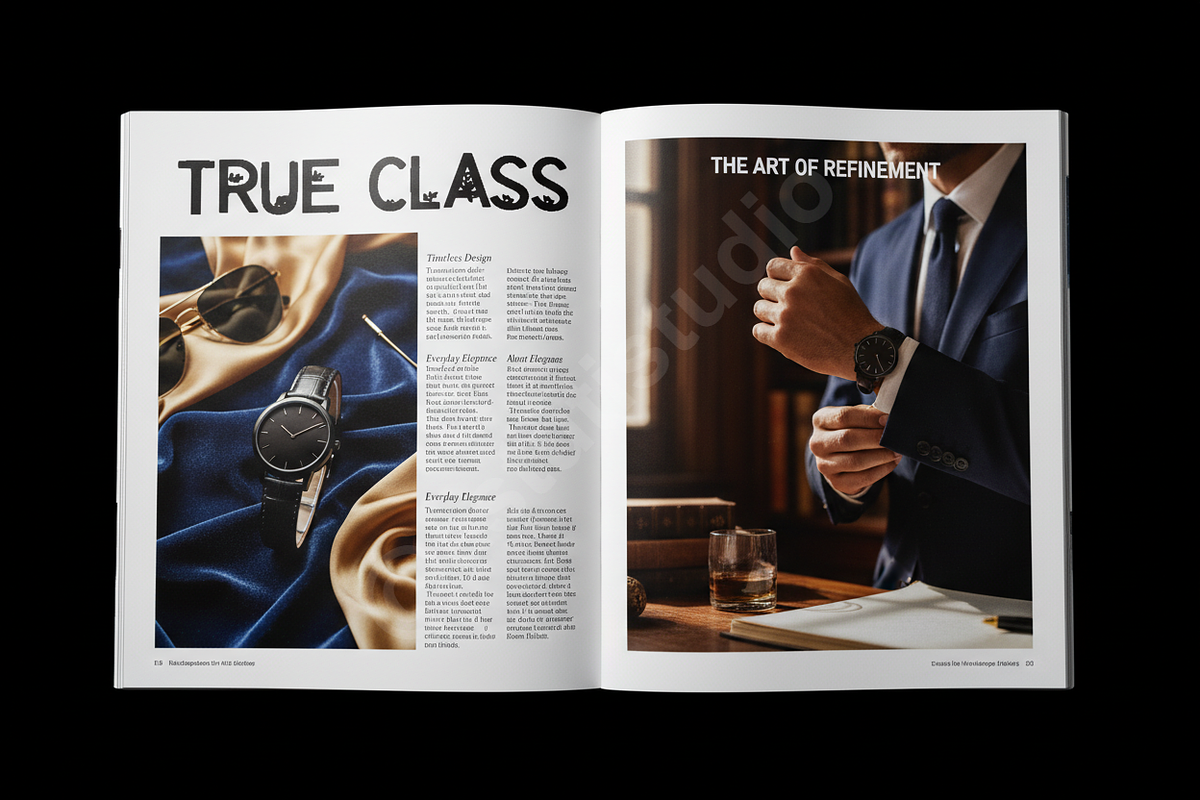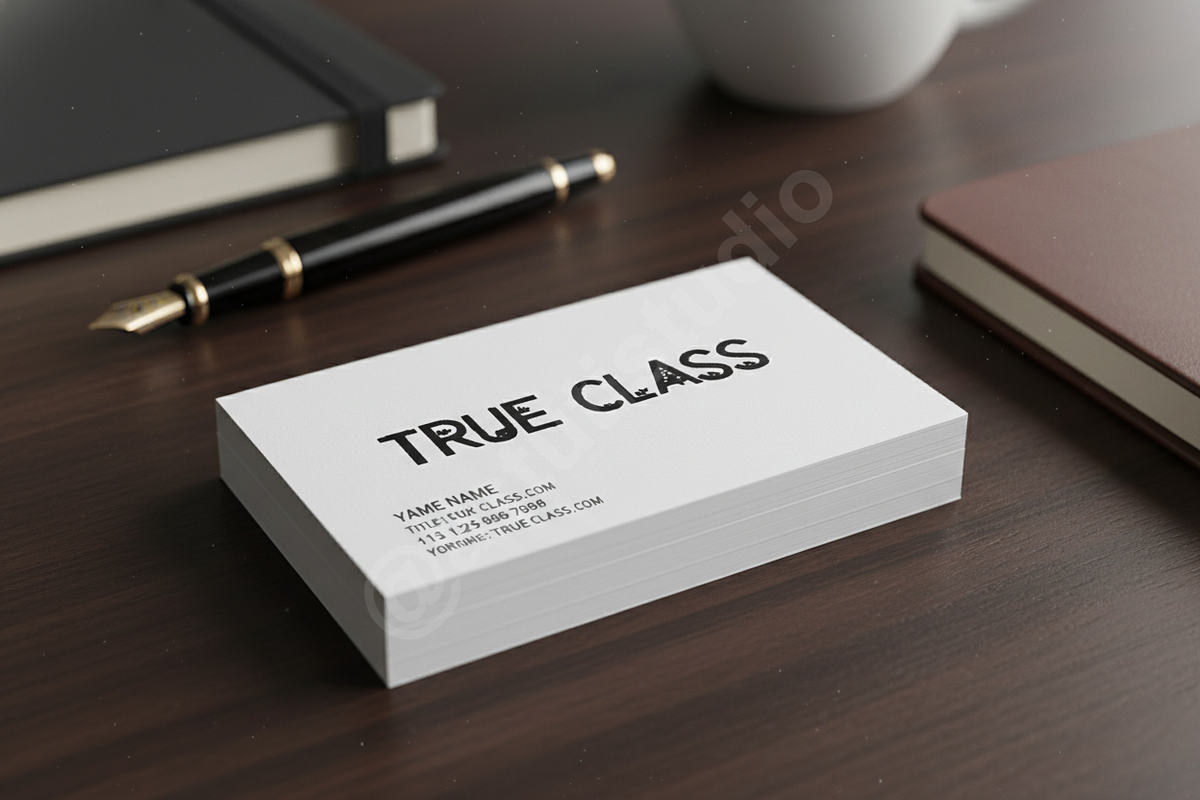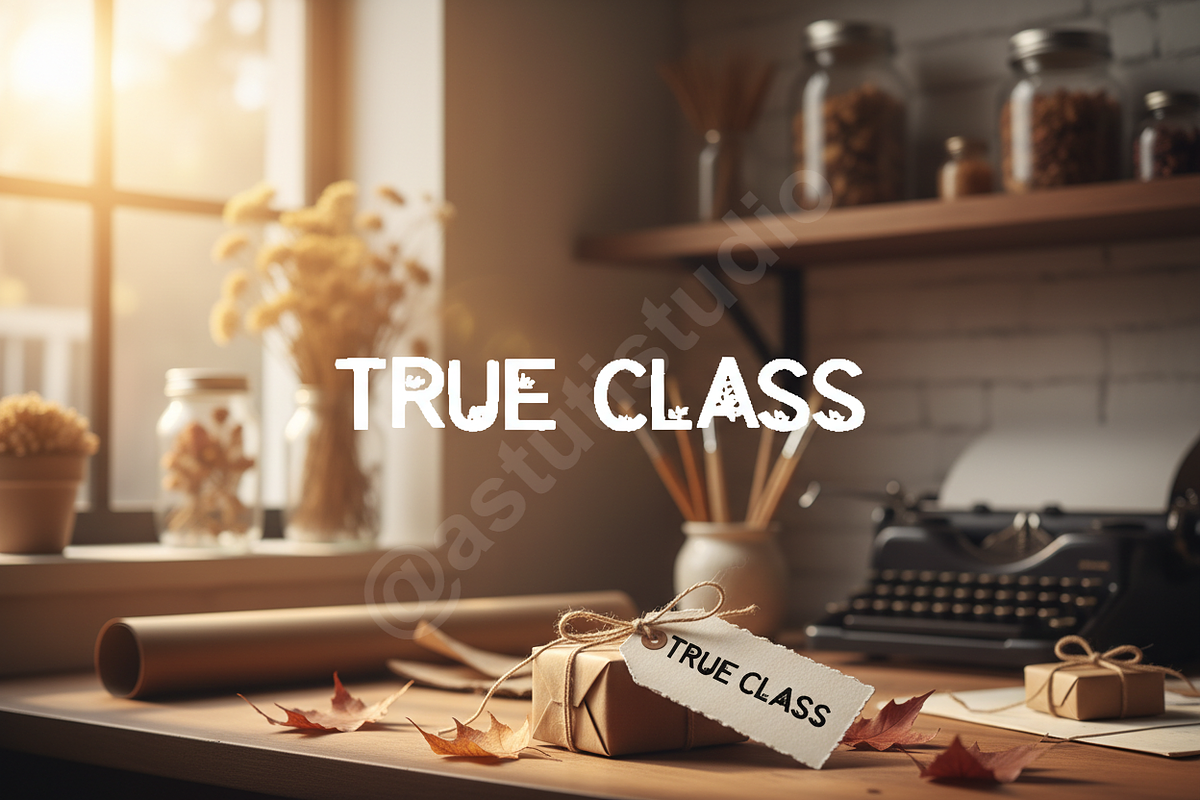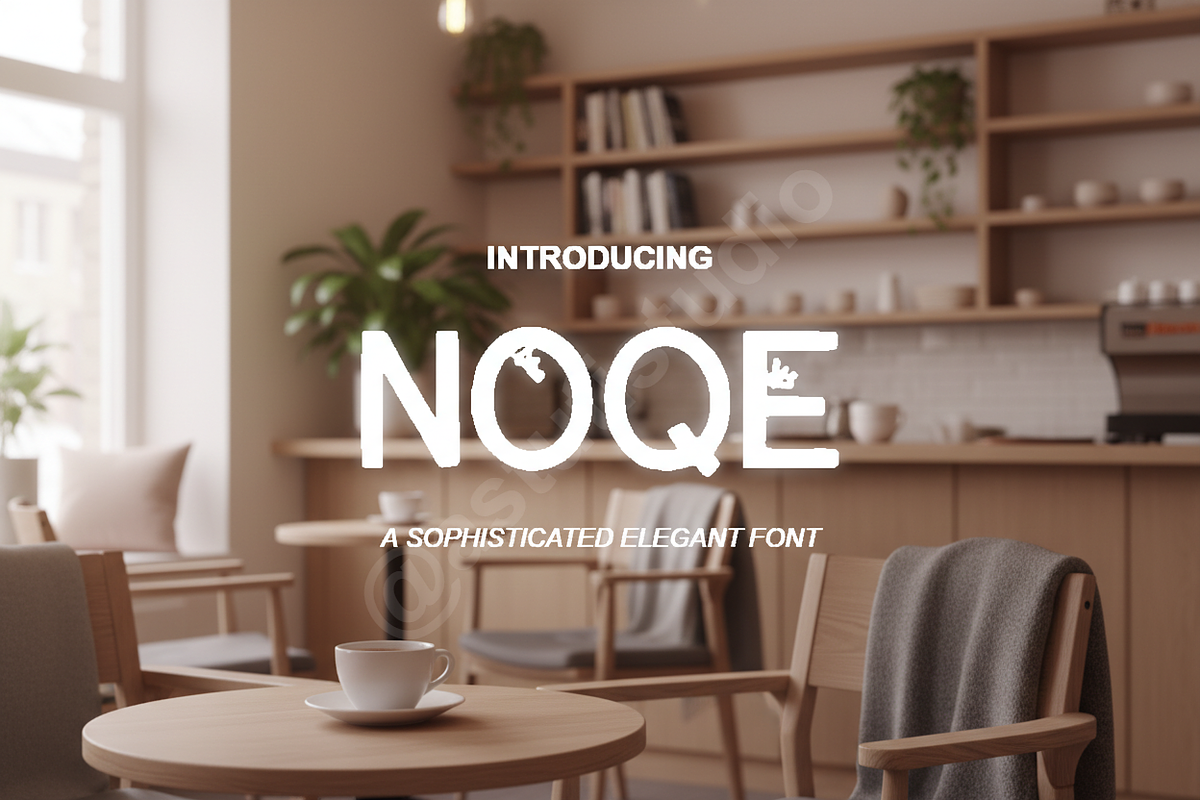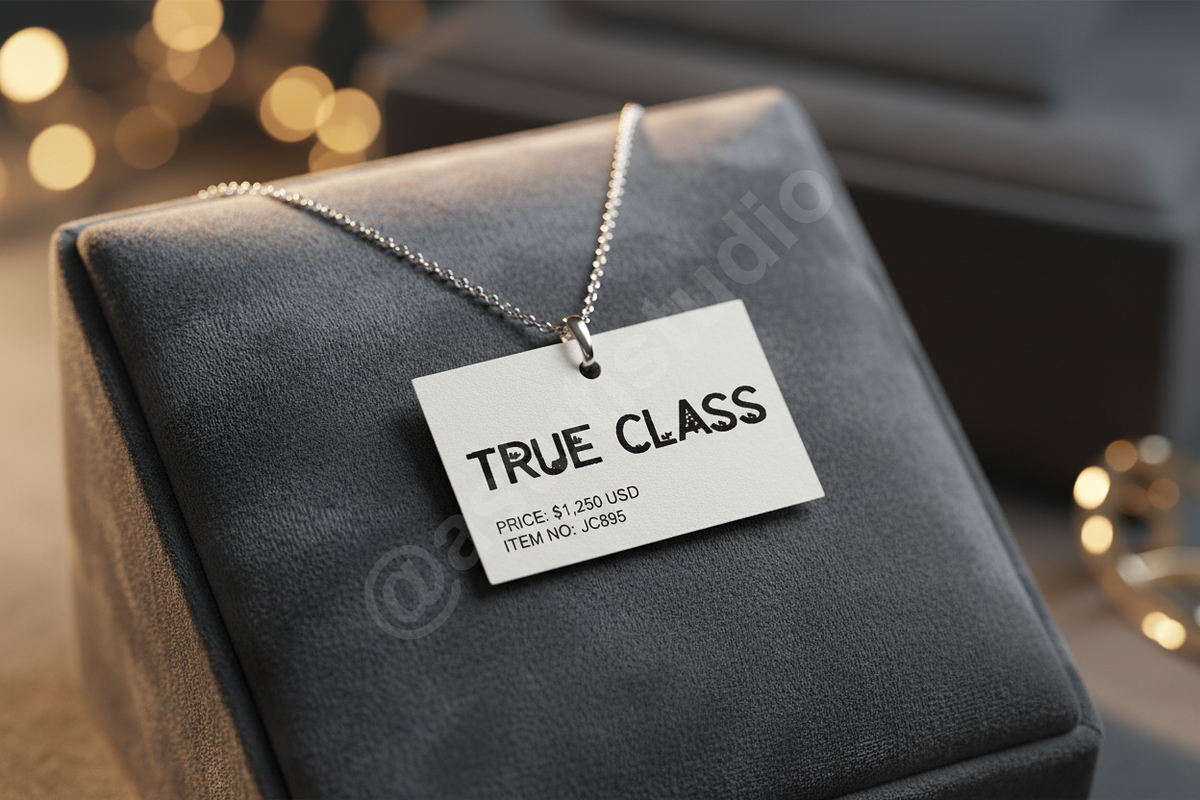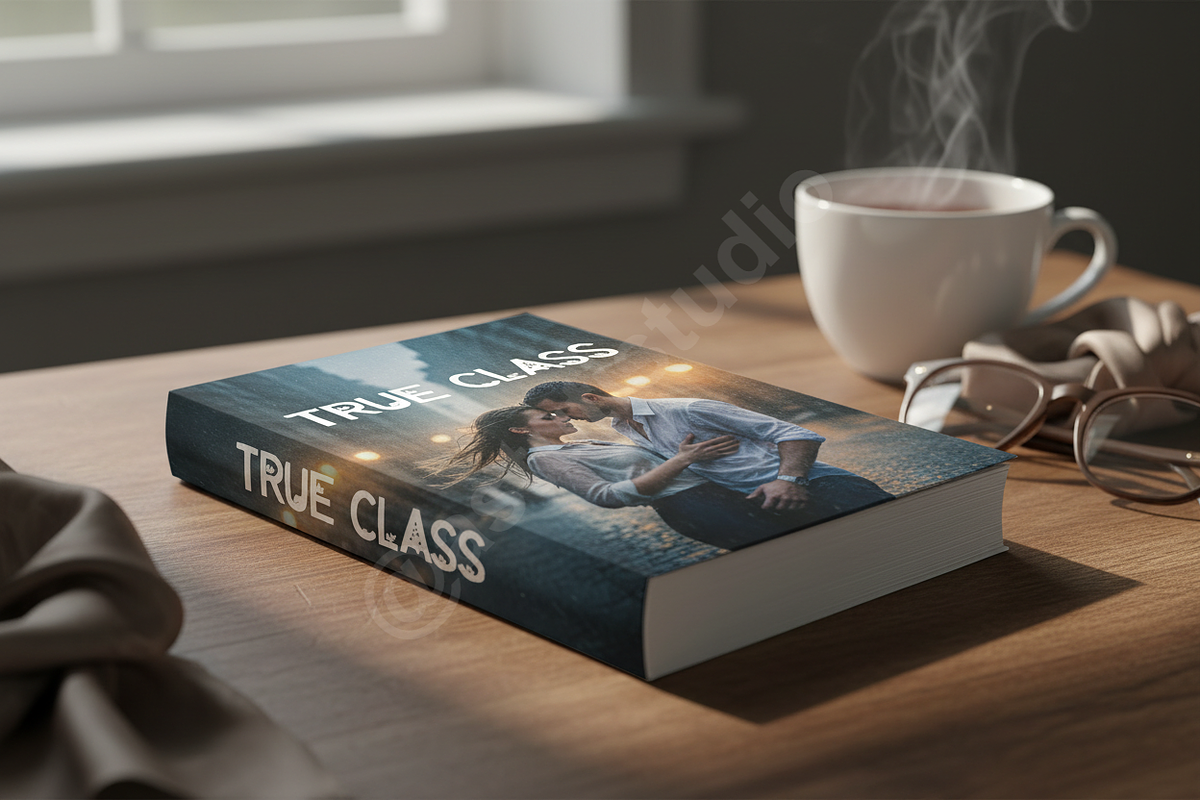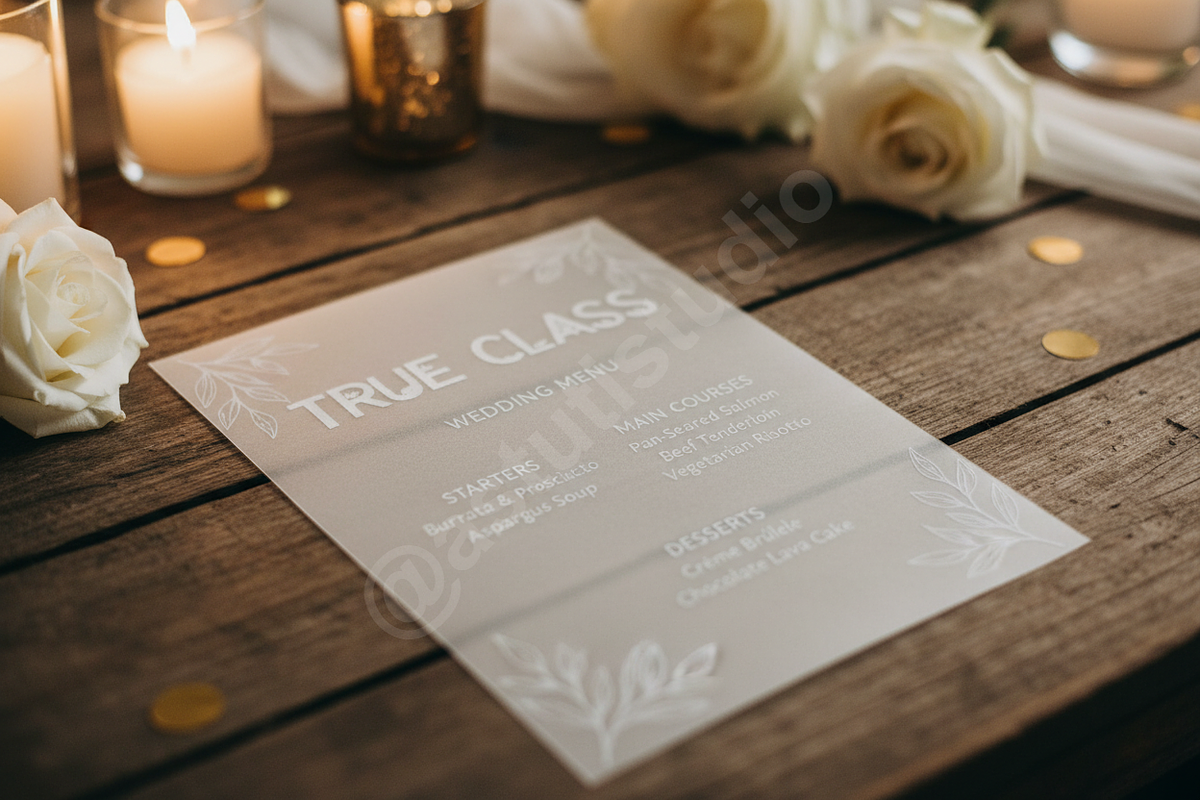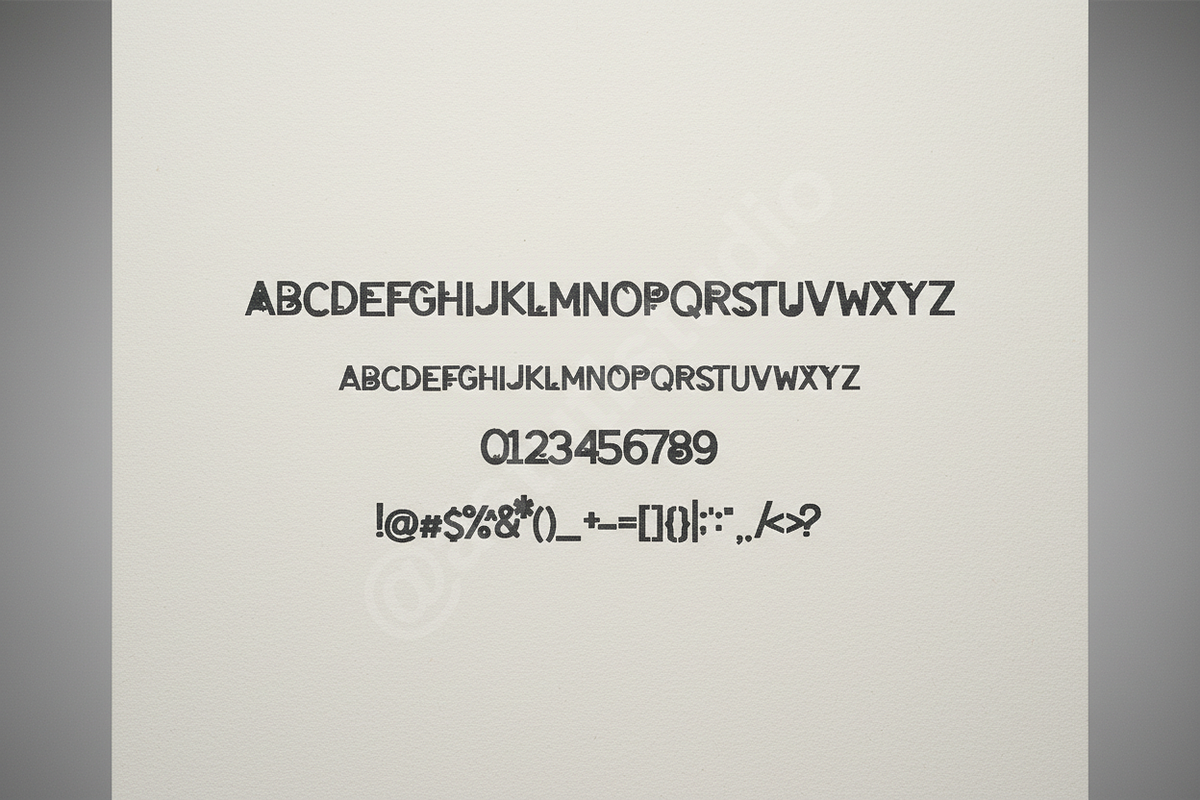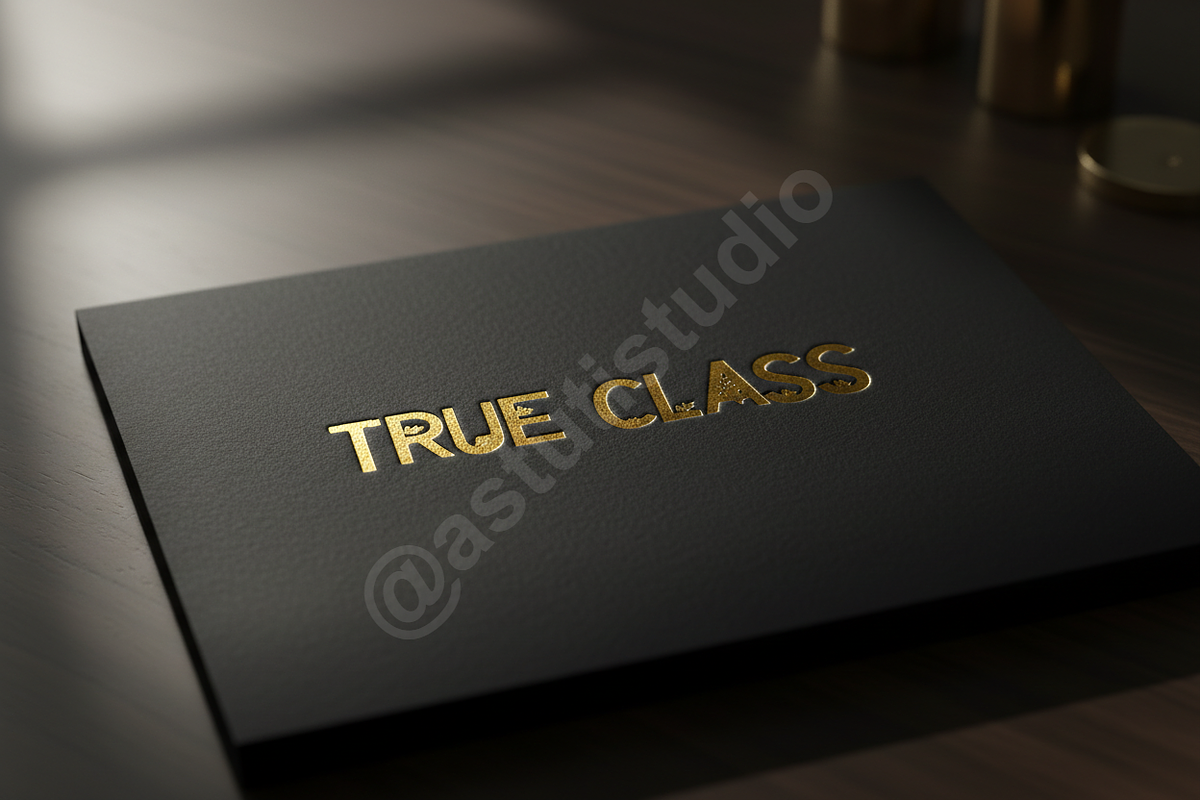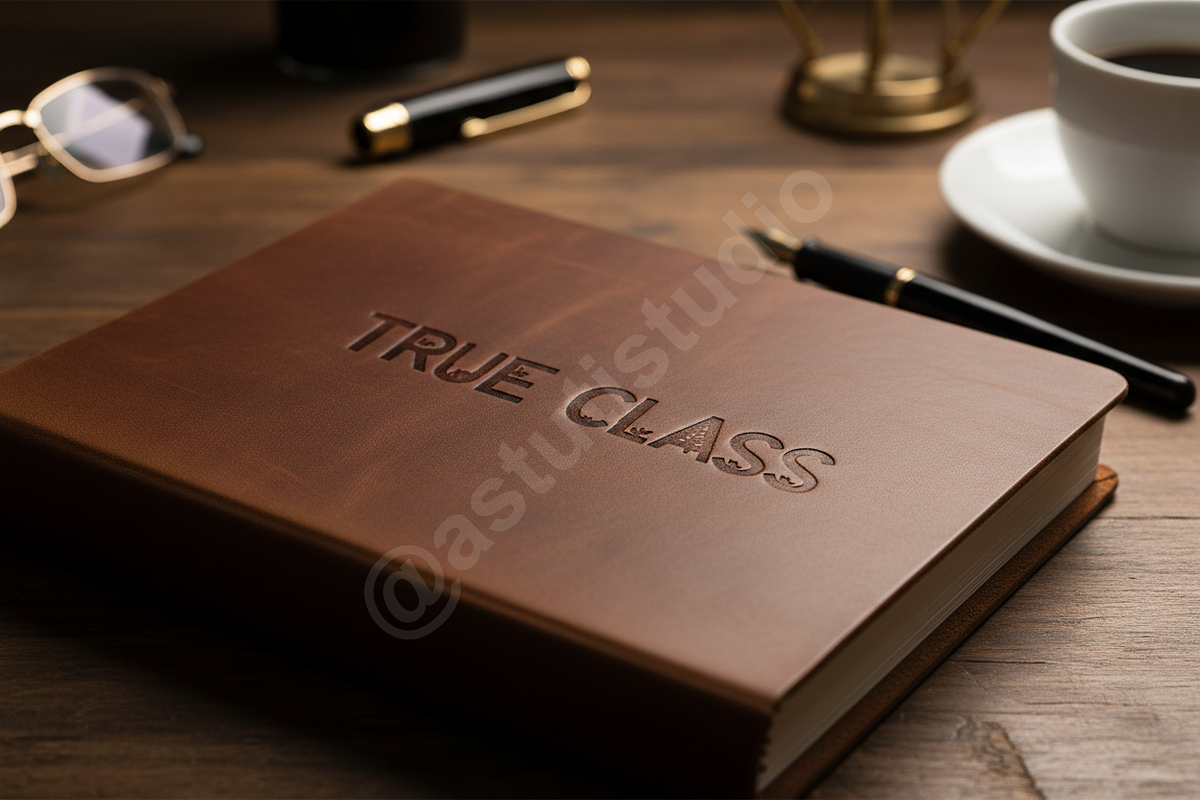
Noqe | Elegant & Modern Serif Typefa
ABOUT NOQE
Elevate your creative vision with Noqe, a premium serif typeface crafted for high-end aesthetics. Noqe seamlessly blends classic editorial charm with a modern, minimalist silhouette. Designed for those who demand sophistication, this font offers a timeless look that commands attention without effort.
DESIGN FEATURES
- Perfectly suited for luxury branding and identity design
- Refined for high-fashion editorial layouts and magazine spreads
- Optimized for professional social media assets and digital marketing
- Features clean, sharp terminals and elegant ligatures
- High contrast for a premium, upscale feel